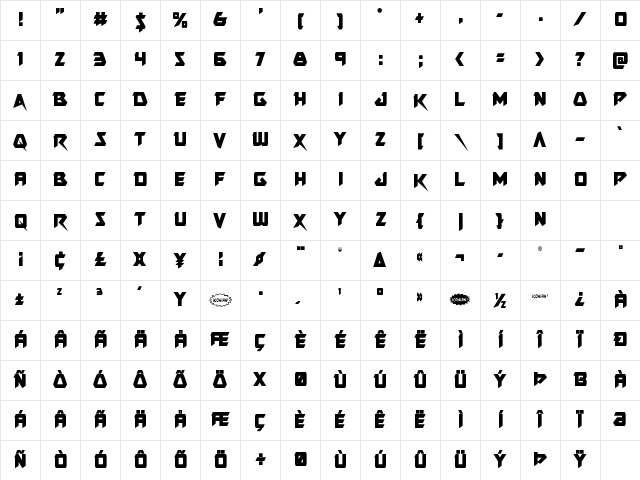
Complete Skirmisher Condensed glyph index. Displaying only characters natively supported by Skirmisher Condensed font.
Skirmisher Condensed is a composed and adaptable typeface that performs quietly and consistently across a wide range of design contexts. Its narrow stance lets it pack a punch even in space-constrained designs.